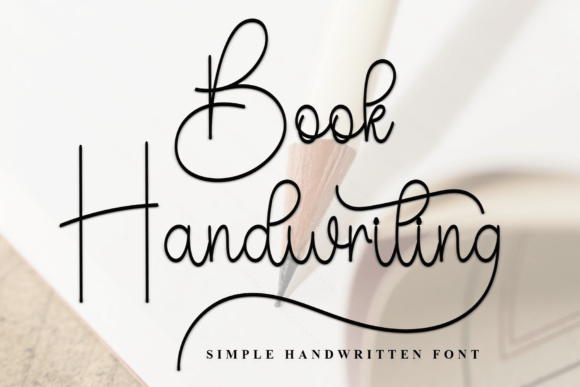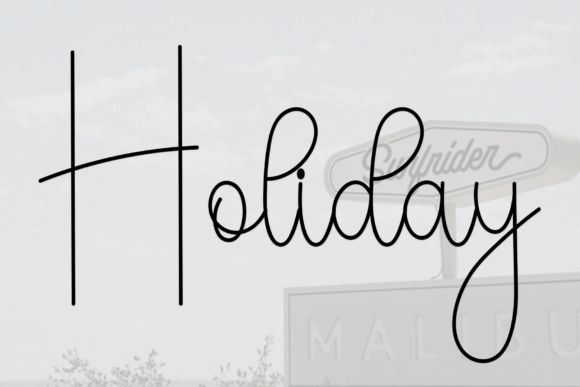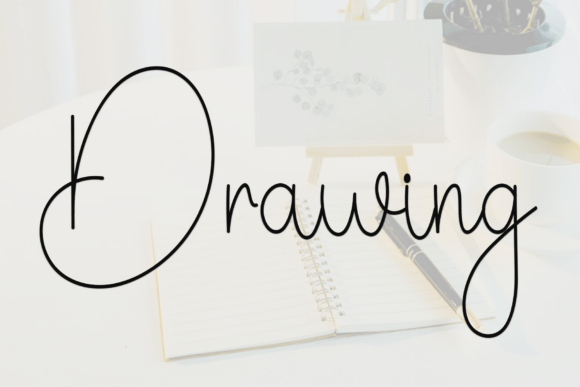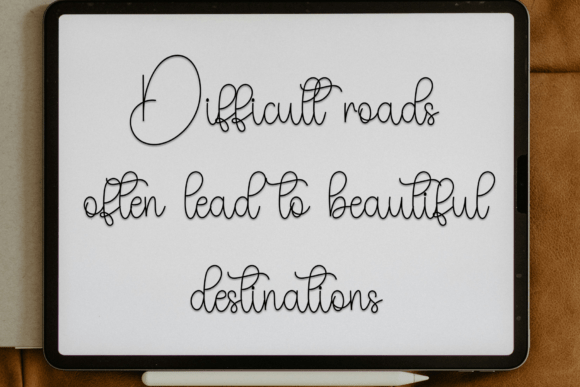
Book Handwriting Font
About the Book Handwriting Font
The Book Handwriting Font offers a perfect balance of form and function for your design needs. Book Handwriting is a casual and creative font that exudes warmth and friendliness. Its round, playful strokes create a relaxed and approachable feel, perfect for personal projects, invitations, and social media graphics. The font’s charming, hand-drawn aesthetic adds a fun and unique touch to any design.
Book Handwriting excels in applications requiring a friendly, approachable feel, such as short headlines, invitations, greeting cards, and social media posts. Its casual nature makes it ideal for branding projects targeting a younger demographic or emphasizing a playful brand personality. However, it’s less suitable for body text or UI elements due to its low readability in extended passages.
Pairing Book Handwriting with a clean sans-serif like Open Sans for body copy creates a balanced contrast; the playful script is grounded by the crisp readability of the sans-serif. Alternatively, a classic serif like Garamond could offer a sophisticated counterpoint, emphasizing the handwritten aspect of Book Handwriting while adding formality.
The font’s overall personality is best described as friendly and casual. Its charm lies in its informal, hand-drawn aesthetic, making it a versatile choice for projects seeking a warm and approachable tone.